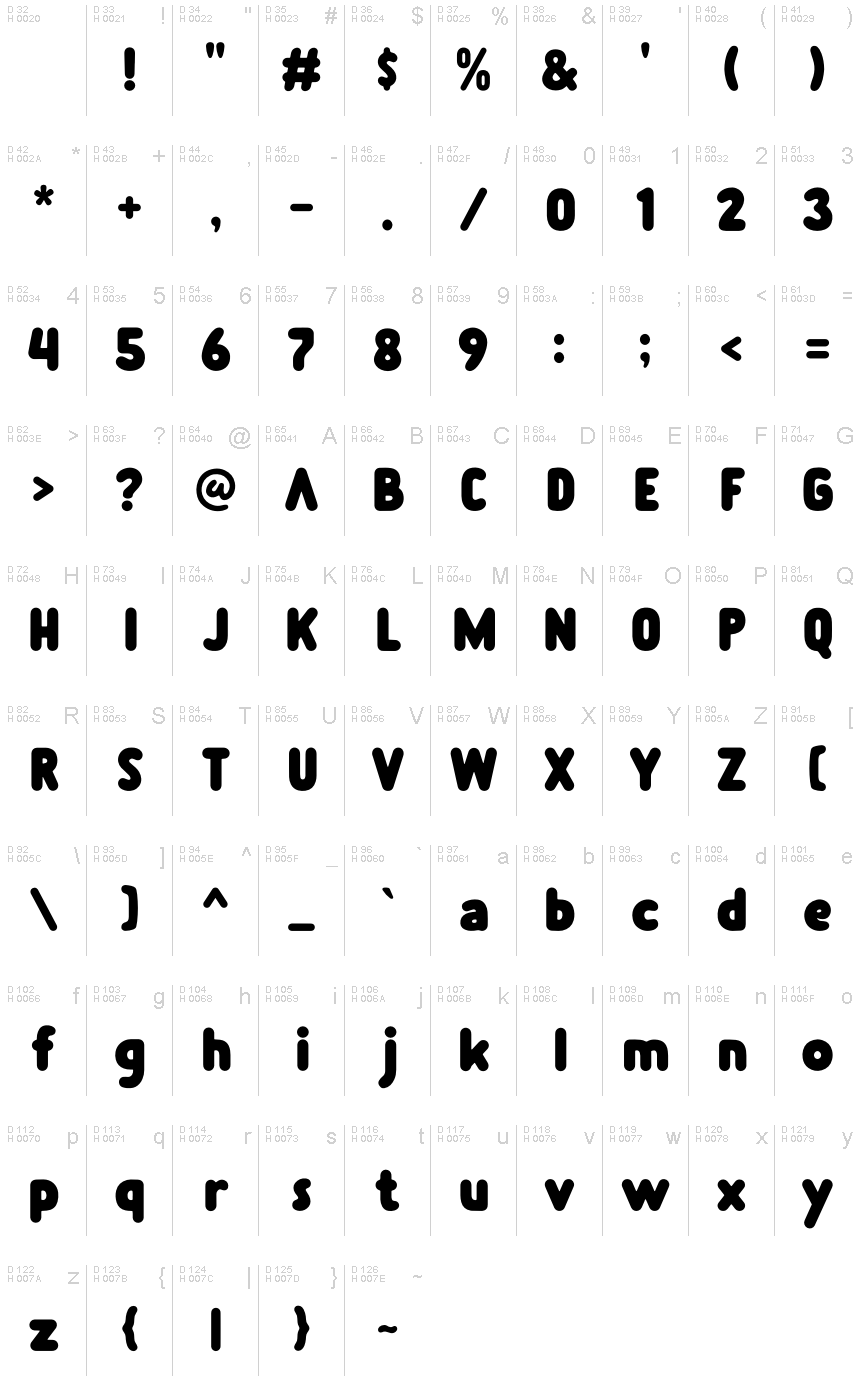
Plopin
Plopin font, crafted by Typeline Studio, delights with its playful cartoon style and bold presence. Its hefty strokes give a strikingly cheerful aesthetic, making it an eye-catching choice for various creative ventures. The rounded edges and whimsical design evoke a sense of joy and approachability, ideal for attracting attention in medium to large formats.
Whether used in vibrant posters, engaging children's books, or lively branding projects, Plopin’s unique personality brings any message to life with flair and fun. This font thrives in contexts that call for an energetic vibe, inviting viewers to engage and connect. Embrace the charm of Plopin for your next design endeavor—it’s sure to make an unforgettable impact!